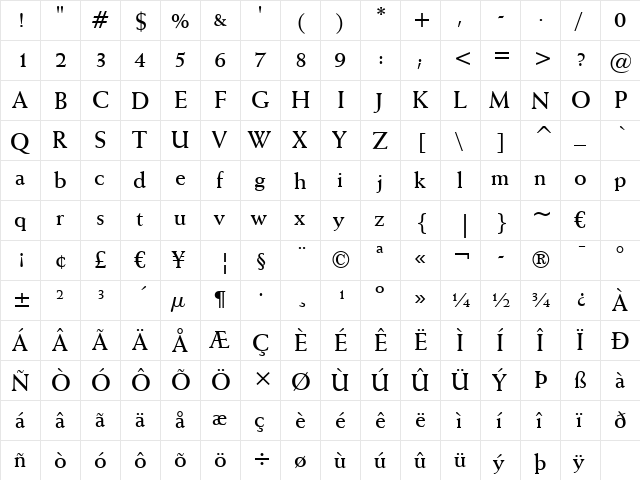
Weiss BT Bold
Design Context for Weiss BT Typeface
Weiss BT is a composed and adaptable typeface that performs quietly and consistently across a wide range of design contexts. Its bold stroke weight gives it real presence on the page.